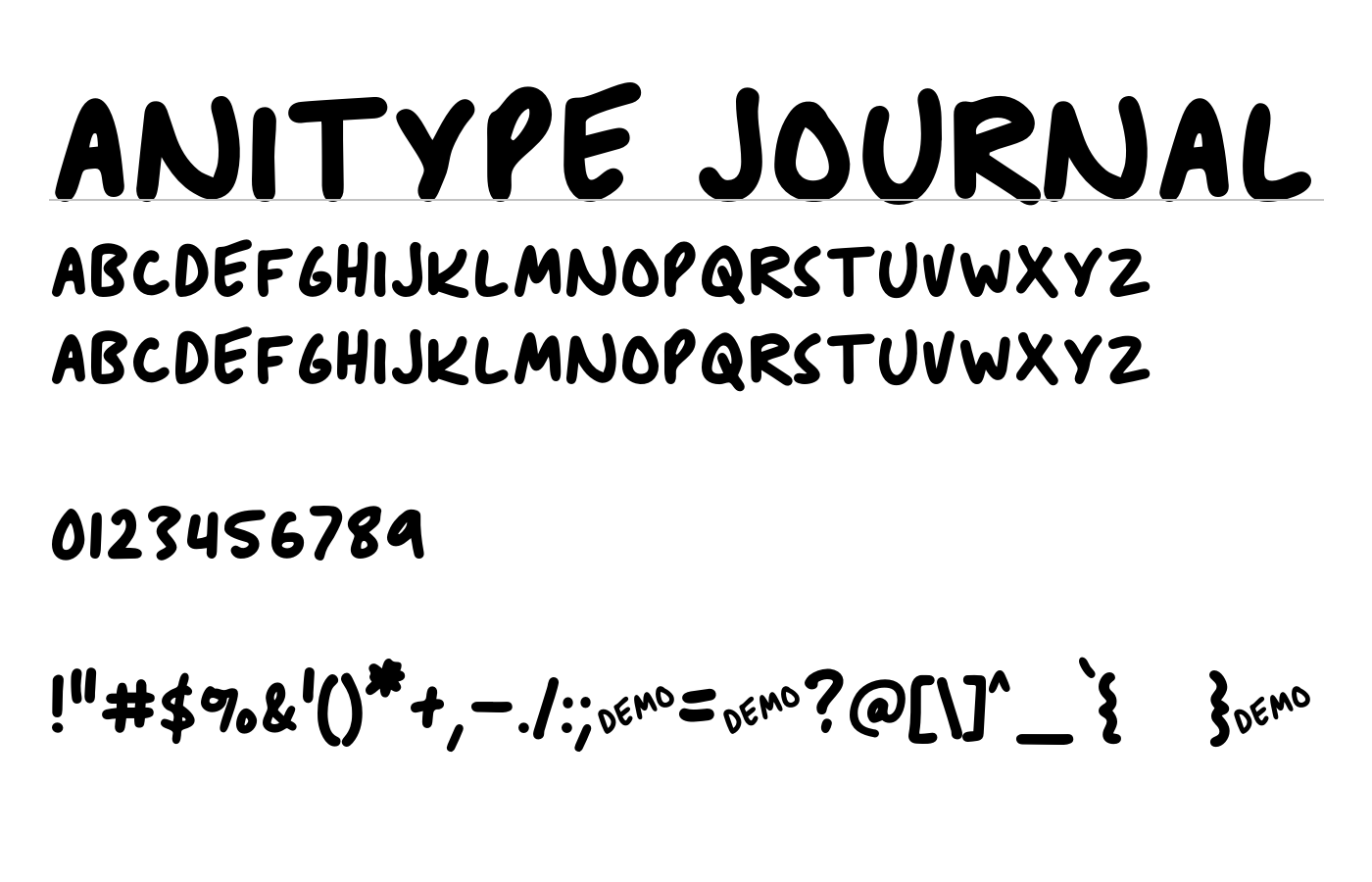
Anitype Journal is a playful sans serif font with a casual, hand-drawn style that feels friendly and approachable. Its bold weight, rounded letterforms, and irregular strokes give it an informal, youthful vibe perfect for creative projects, children's materials, or branding that seeks a personal touch. This font works well in headlines and display uses where a warm, expressive voice is desired.
Anitype Journal Font
About Anitype Journal Font